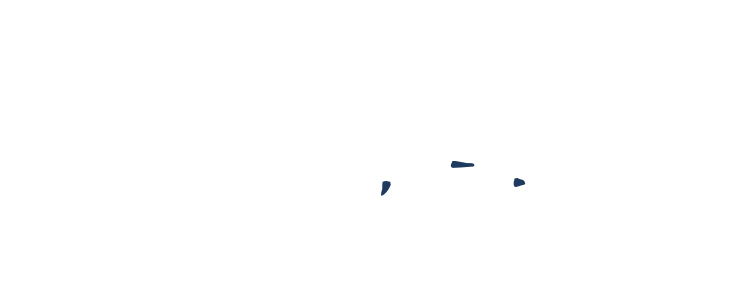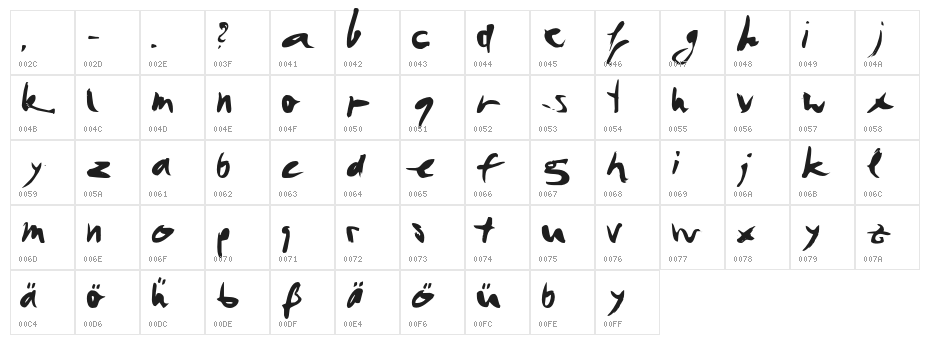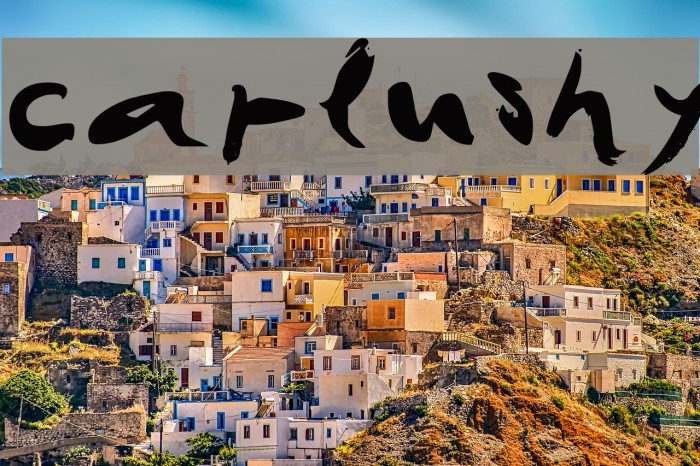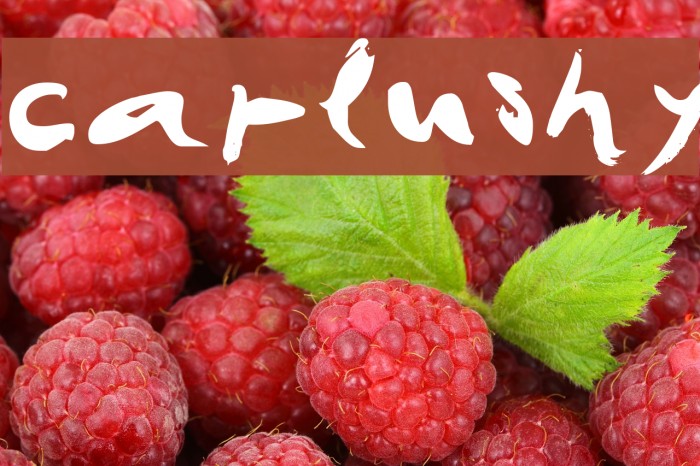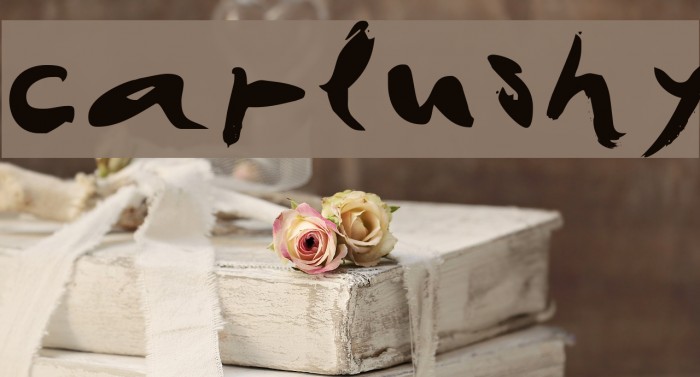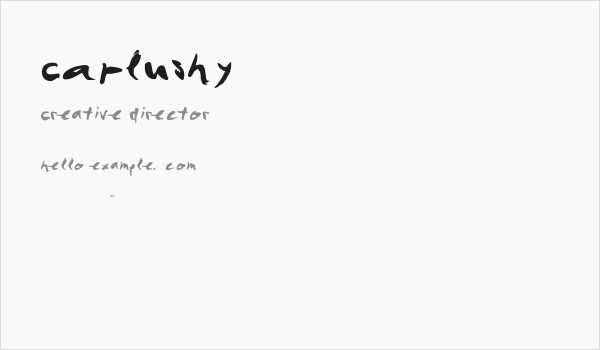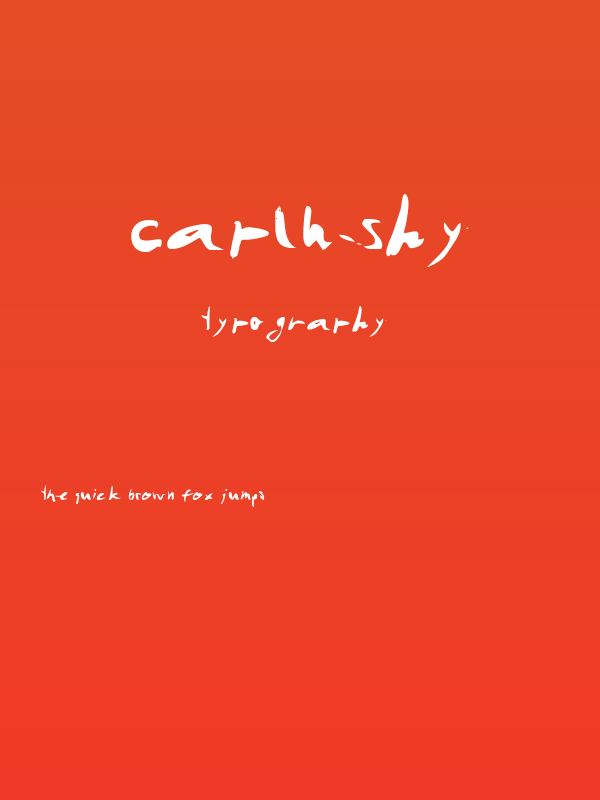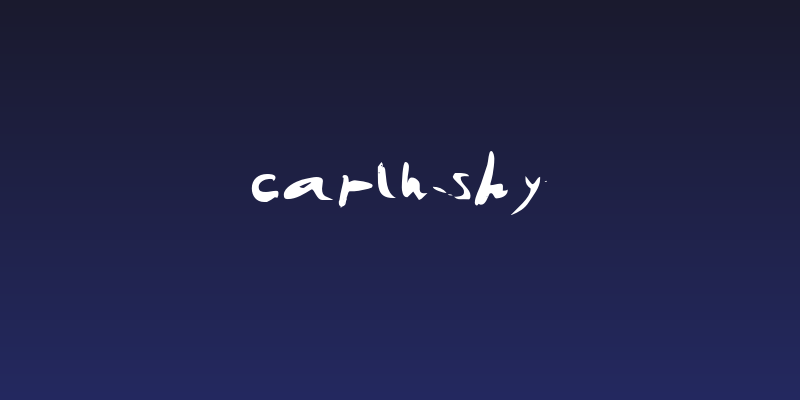
CAPlushy Font
CAPlushy Description
This font exudes a dynamic and expressive style, characterized by its brush-like strokes and fluid motion. The letters have an organic, hand-drawn appearance, with varying thicknesses that add a sense of movement and energy. The overall aesthetic is artistic and informal, making it suitable for creative projects. The lowercase letters maintain a consistent flow, while the uppercase letters stand out with their bold presence. The font's unique style is accentuated by its irregular edges and spontaneous feel, offering a sense of individuality and creativity.
| Overall Style | Artistic |
| Proposed Projects | Ideal for artistic projects, branding, posters, and creative invitations. |